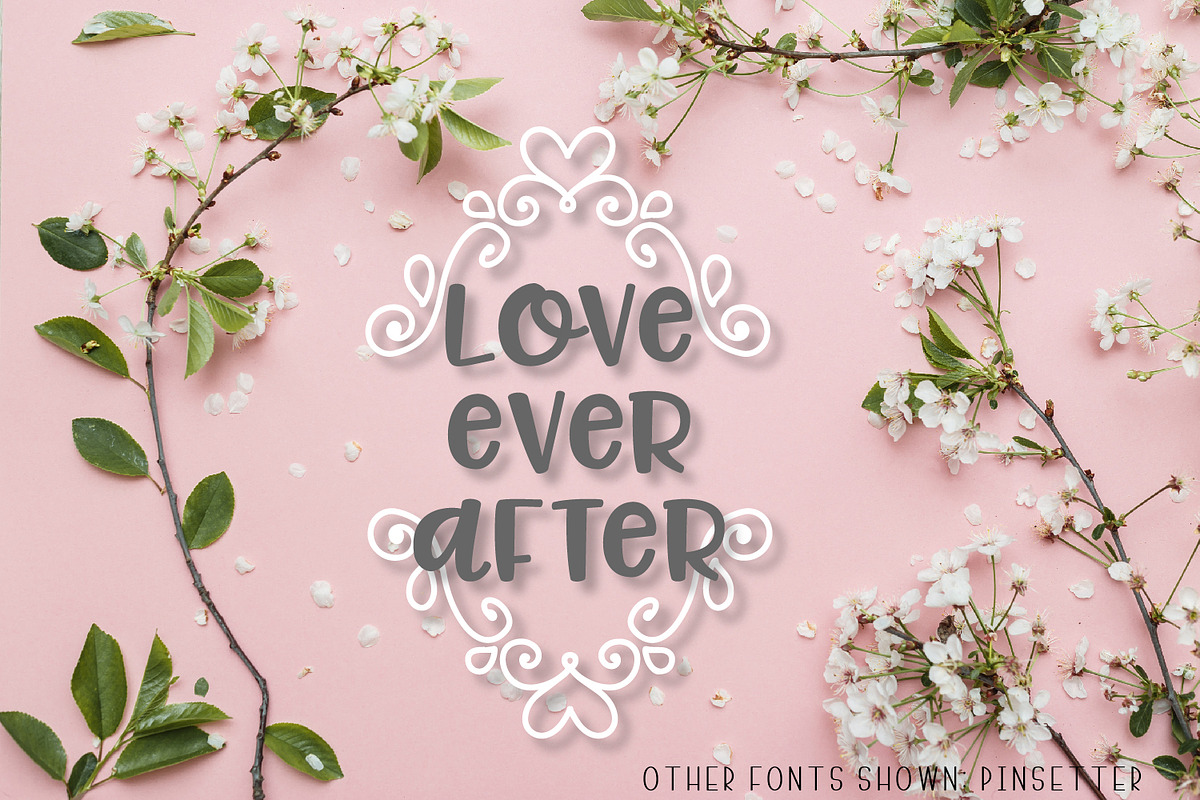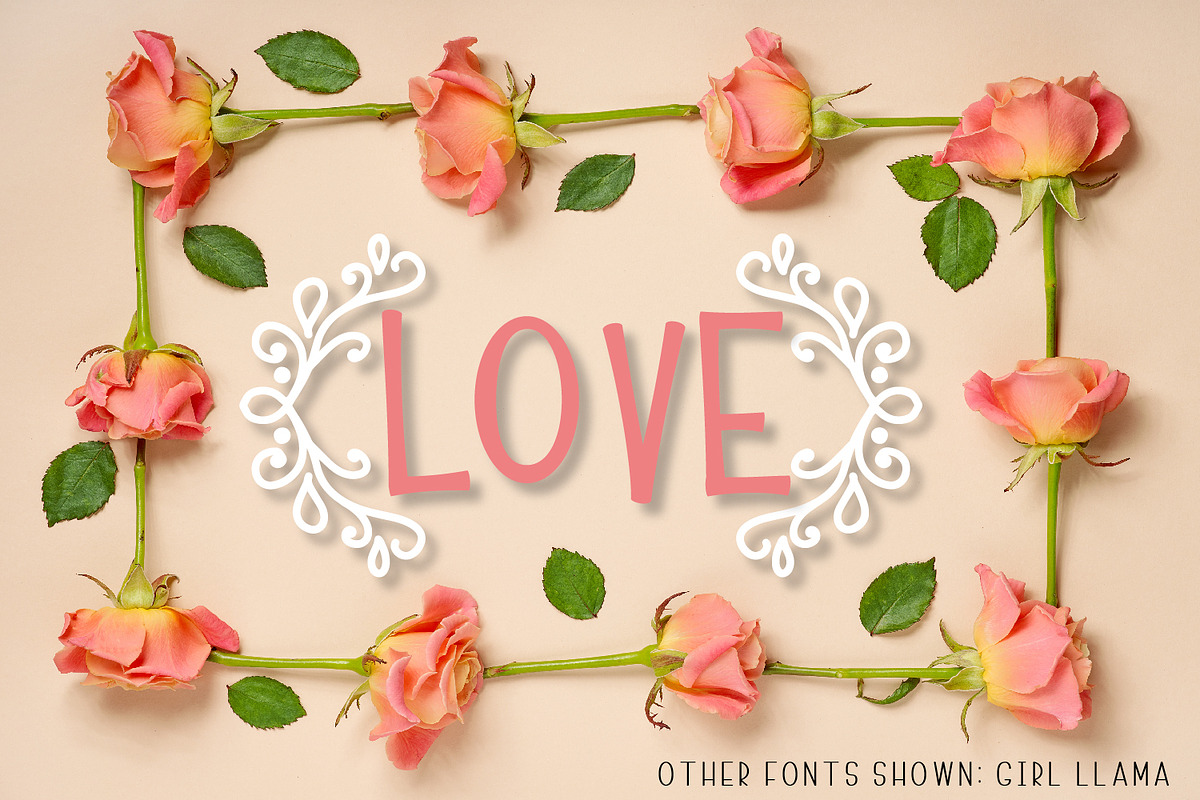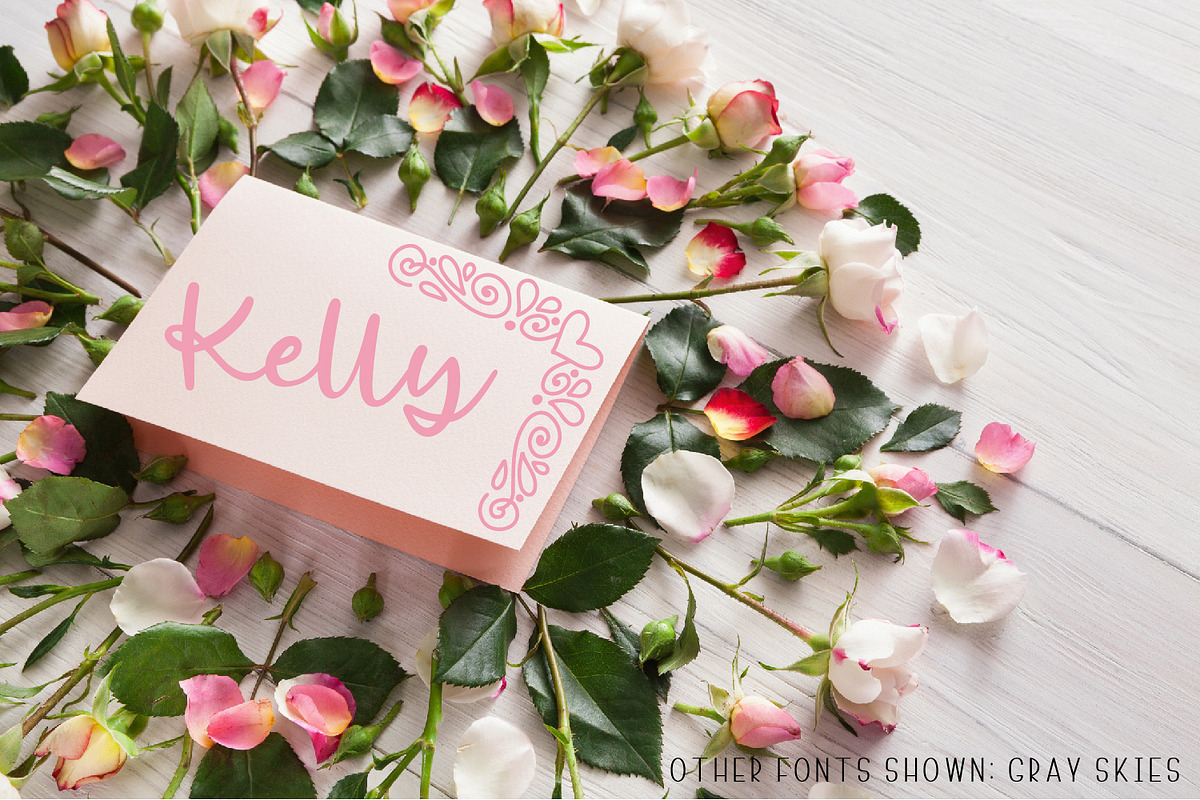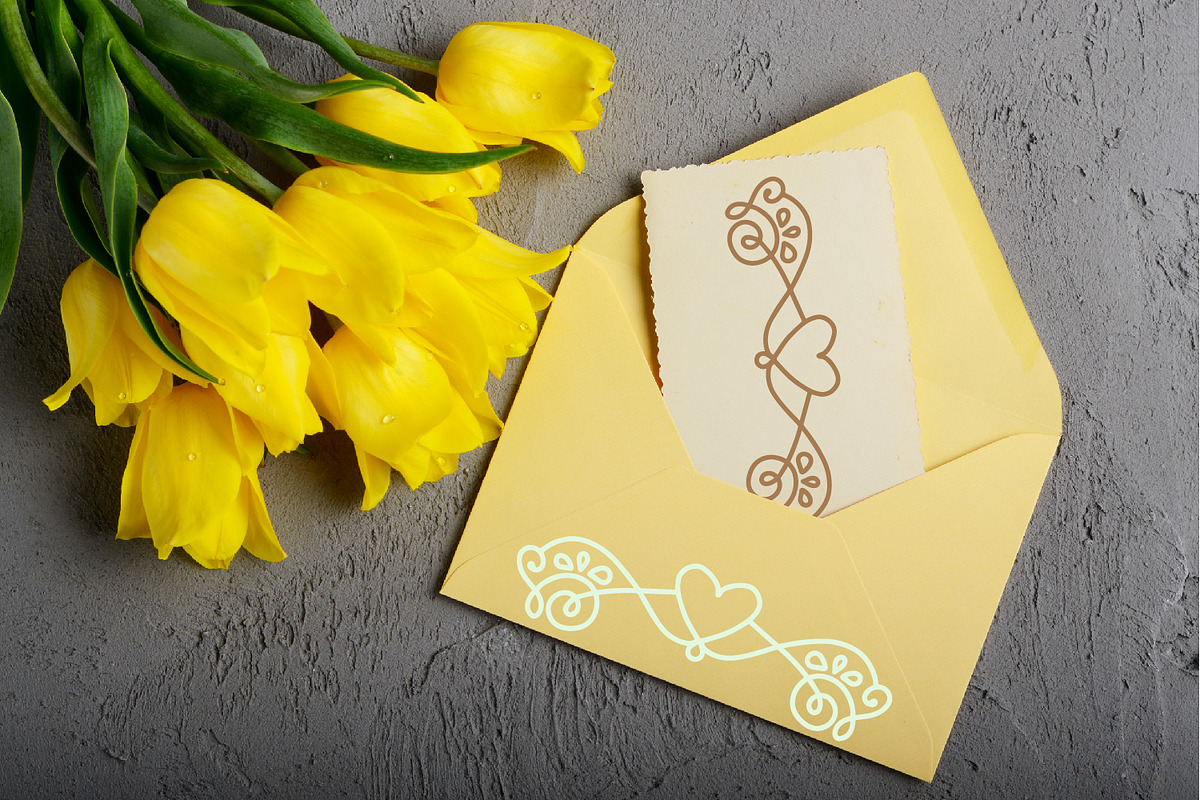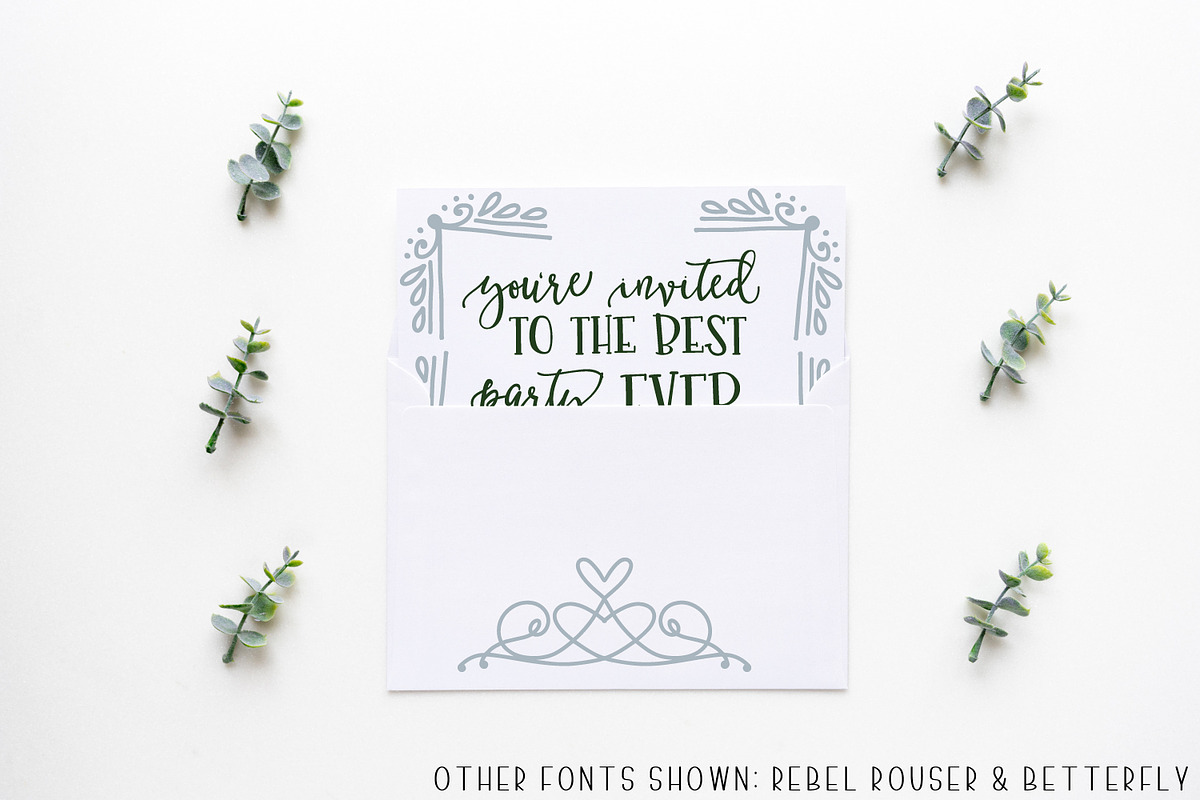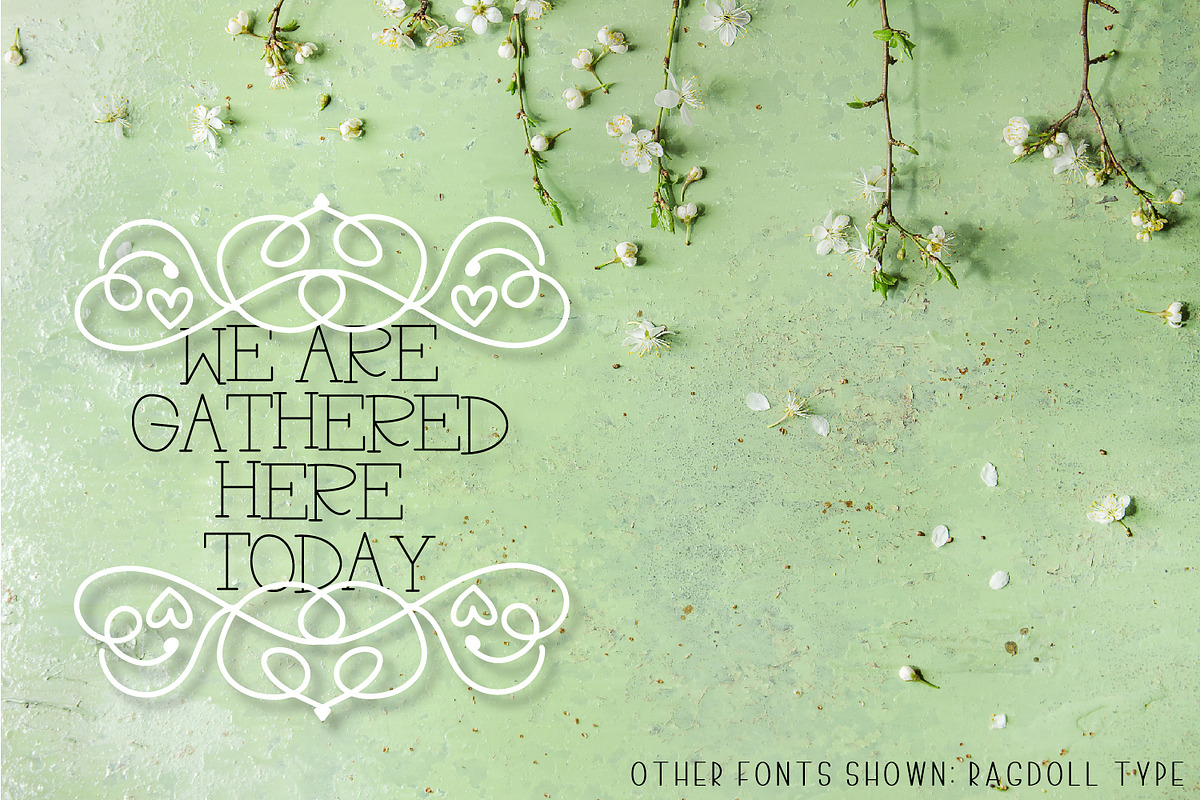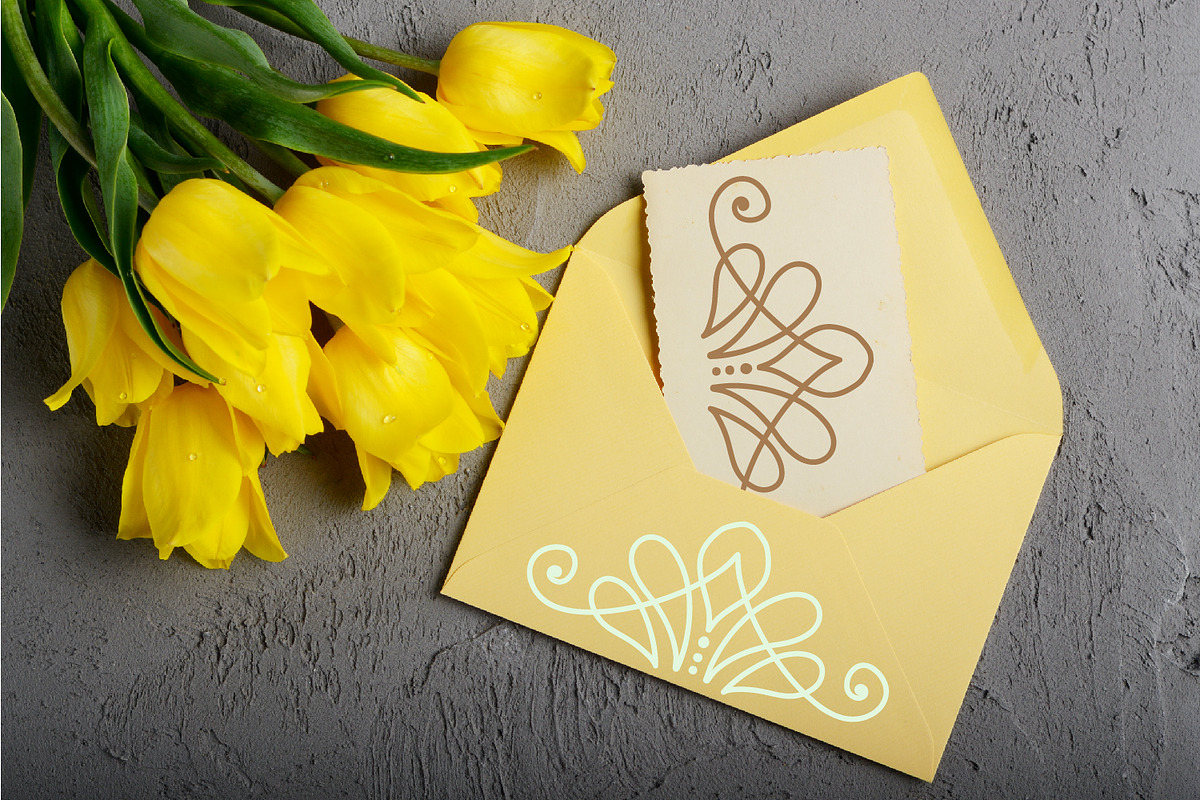
Ornament Font - Hand Drawn Swooshes
- CLN - Ornament Set Regular
Ornament Font - Hand Drawn Swooshes by CraftyLittleNodes fits naturally into Branding, posters, packaging, typography.